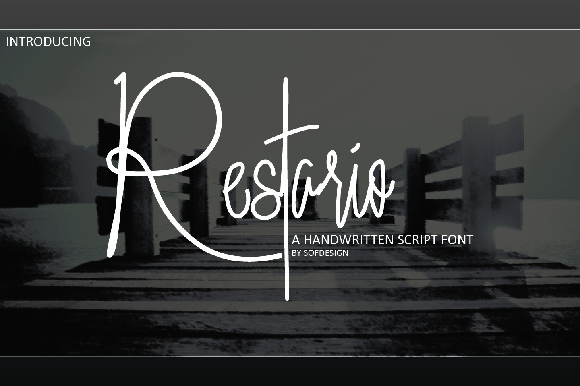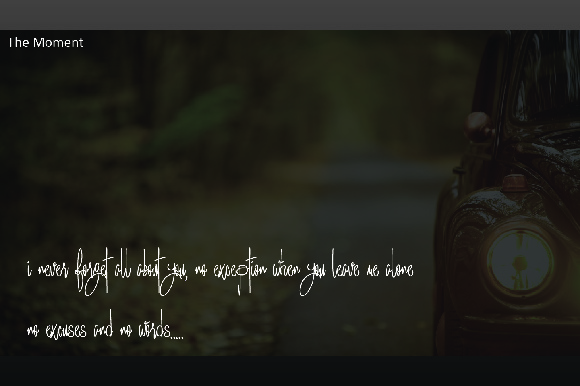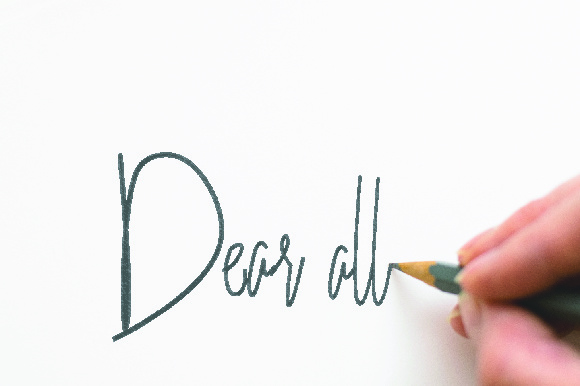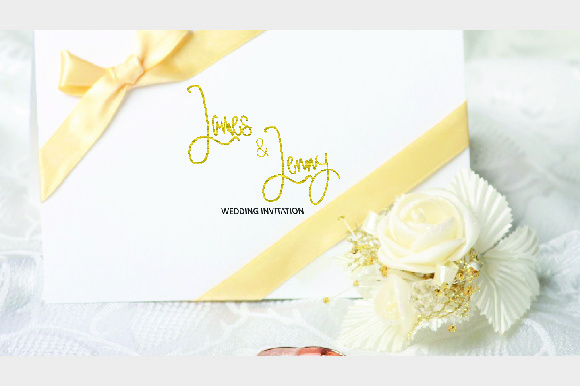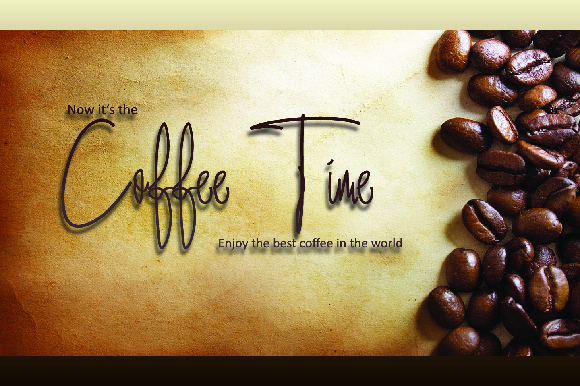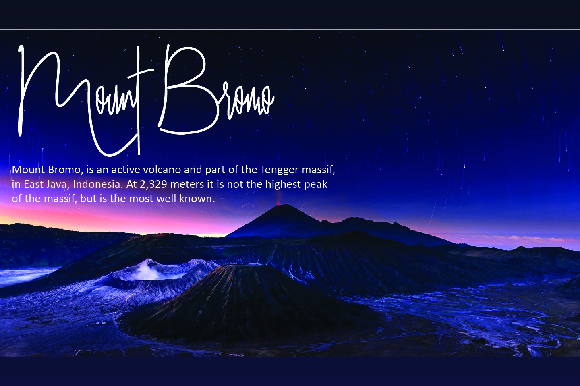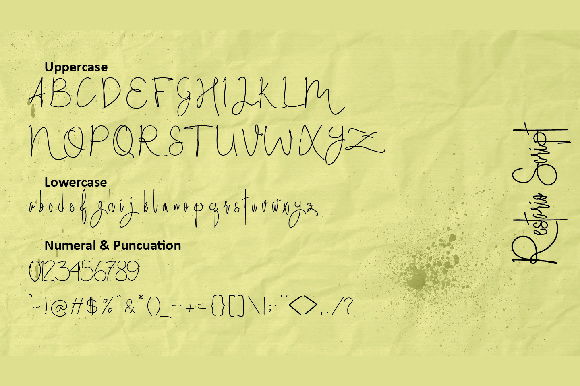
Restario Font
About Restario Font
Restario is a new, modern, handwriting font. Restario looks natural, simple and is perfect for any awesome project such as: logos & branding, invitations, stationery, wedding designs, social media posts, special events and much more !